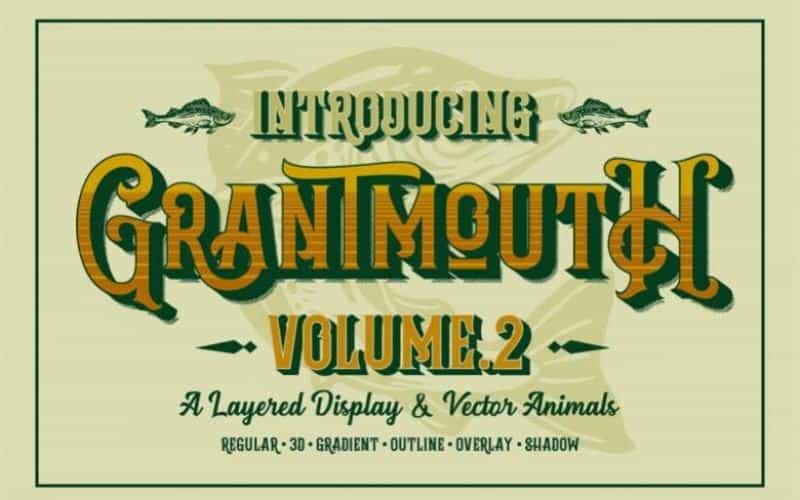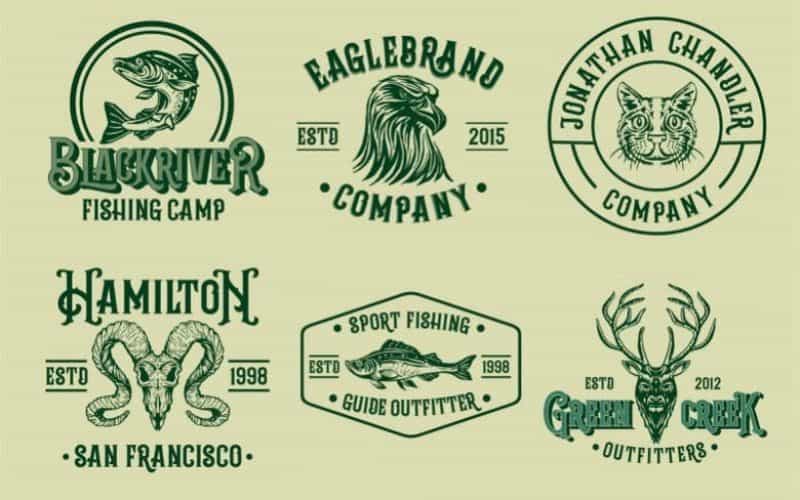
Discover Grantmouth Display Font, part of the Display Retro Fancy collection—a versatile and unique font perfect for adding a personal touch to your projects. Download it for free and enjoy crafting designs with style, from invitations to social media posts. This font is available exclusively for personal use, giving you the freedom to create without limits. Unlock your creativity with Grantmouth Display Font today!
The second edition of Grantmouth Typeface is equipped with different layers to achieve the effect of each form that is produced by the edits. The second volume of Grantmouth Vol. 2 carries the flexibility of every letter without changing the original form of Grantmouth and at the same time it has the animal vectors that can be applied to different designs to support your project.